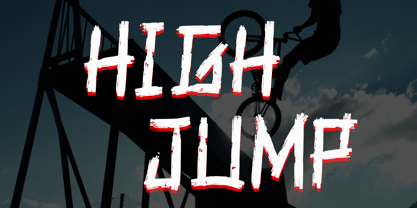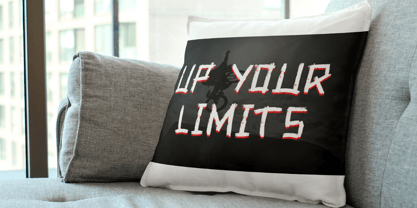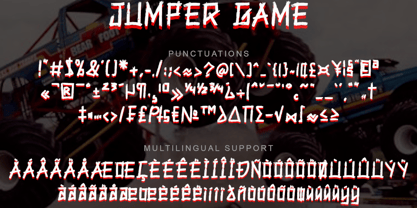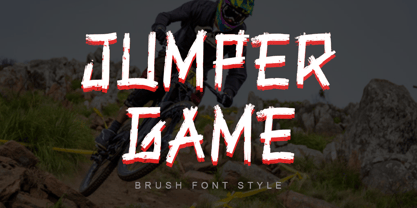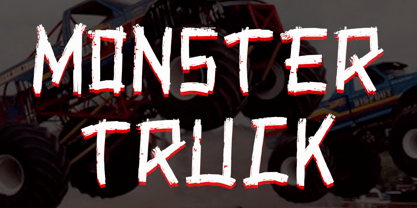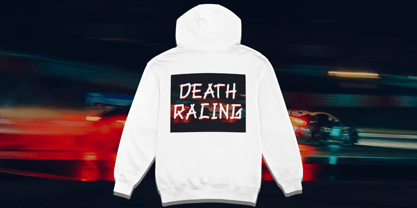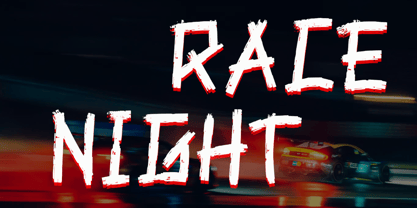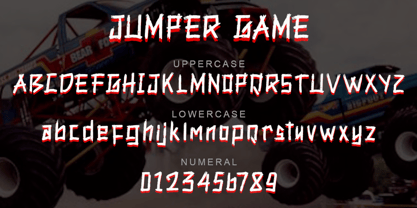
Jumper Game
by Yoga Letter
The Jumper Game Font Family was designed by Isroni Yoga Prasetya and published by Yoga Letter. Jumper Game contains 1 styles. More about this family
"Jumper Game" is an elegant and modern brush font. This font is equipped with uppercase, lowercase, numerals, punctuations and multilingual support. It is very suitable for movie titles, book titles, magazine covers, banners, posters, prints, stickers, halloween, concerts, invitations, summer, spring, easter and others.
Designers: Isroni Yoga Prasetya
Foundry: Yoga Letter
Yoga Letter is independent Type Foundry based in Indonesia, Magelang. I'm a graphic designer who love lettering and creates some fonts with all of my depth love. I'm making creative & fresh fonts, high quality, highly recommended, and suitable for your business. I hope can be a contributor as a fonts author at MyFonts, and I will do the best to create amazing fonts.